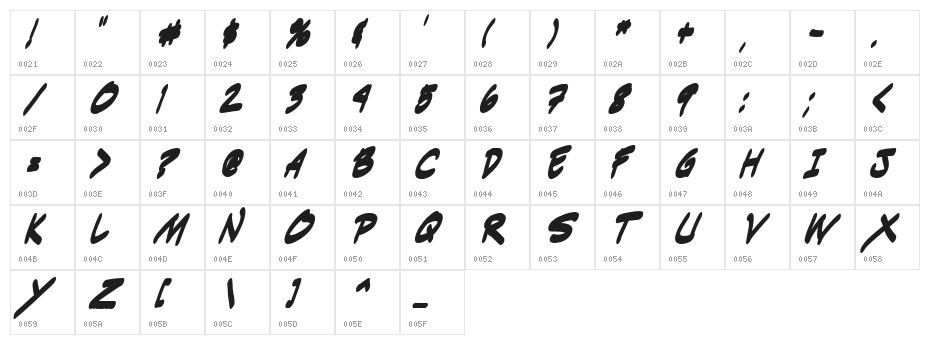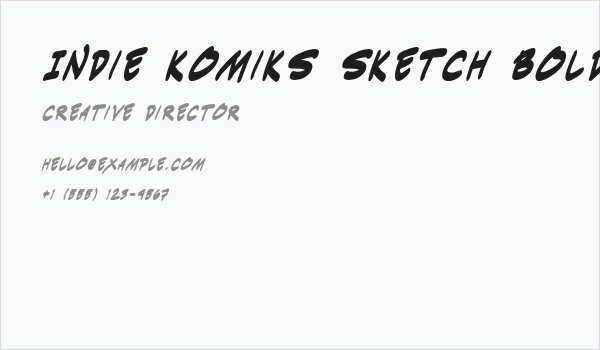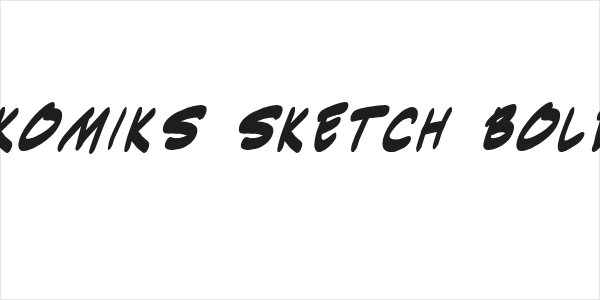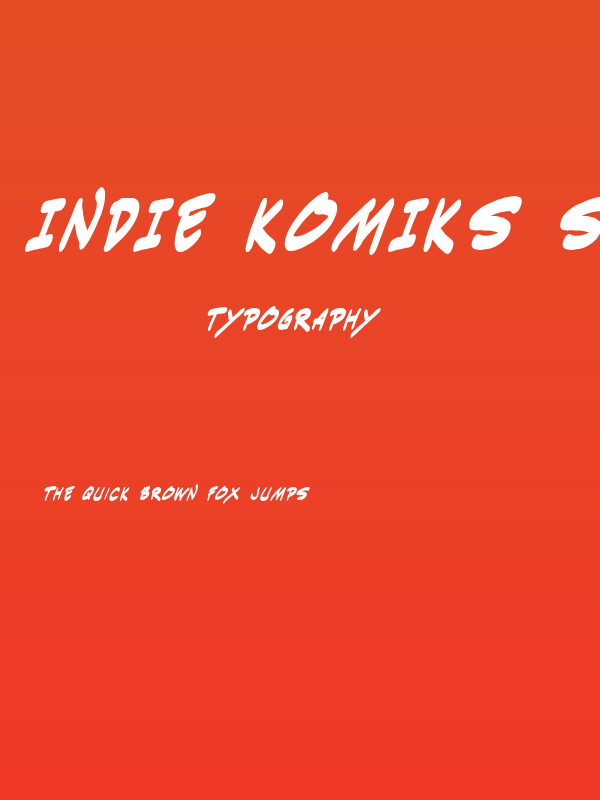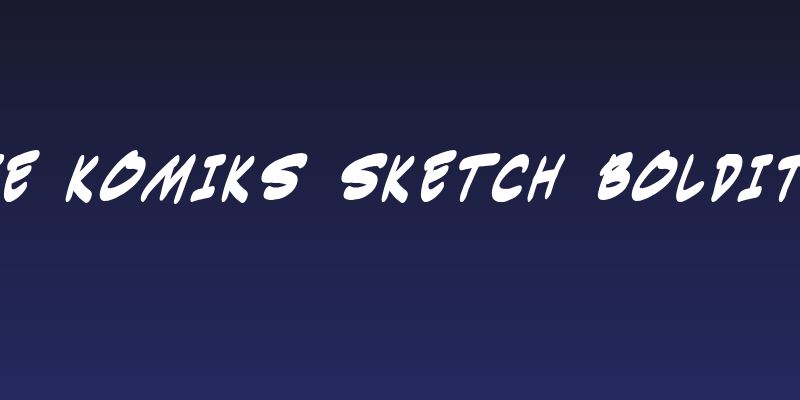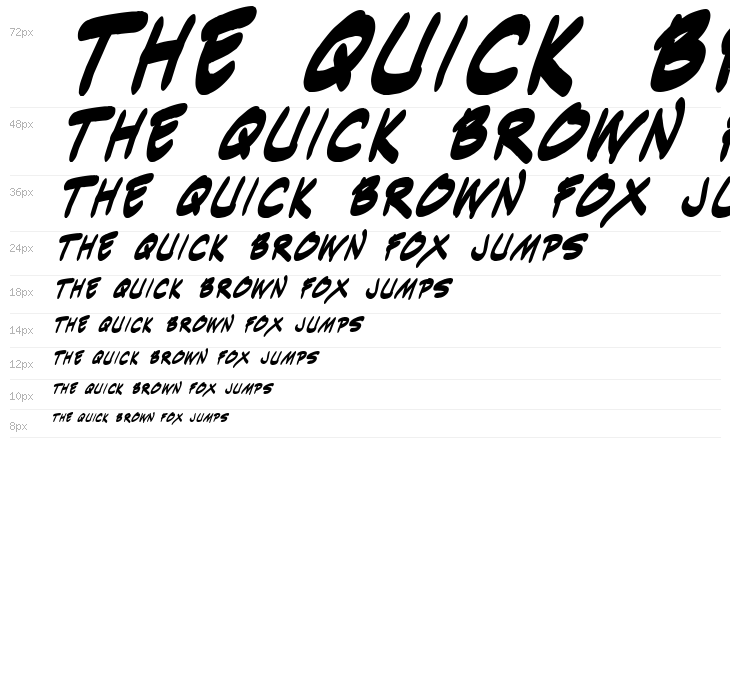
Indie Komiks Sketch BoldItalic Font
Indie Komiks Sketch BoldItalic Description
This font features a bold and dynamic style with a hand-drawn, sketch-like appearance. The letters are slightly slanted, adding an italicized effect that enhances its energetic and informal vibe. The strokes are thick and consistent, giving it a strong presence on the page. The characters are well-defined with a playful and artistic flair, making it ideal for creative projects. The numbers and special characters maintain the same bold and expressive quality, ensuring uniformity across all text elements.
| Overall Style | Modern, Artistic |
| Proposed Projects | Perfect for comic books, graphic novels, posters, and creative branding projects. |